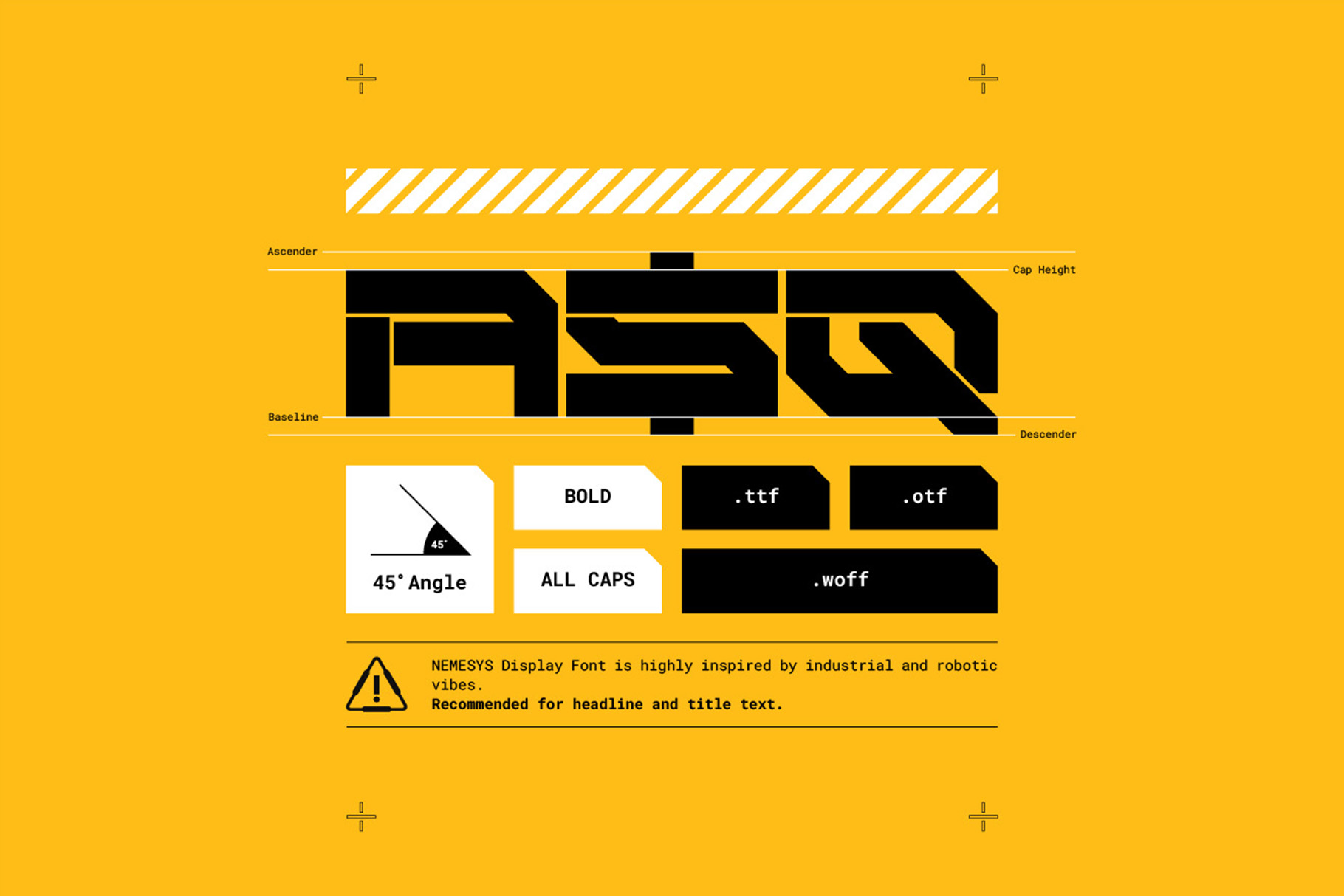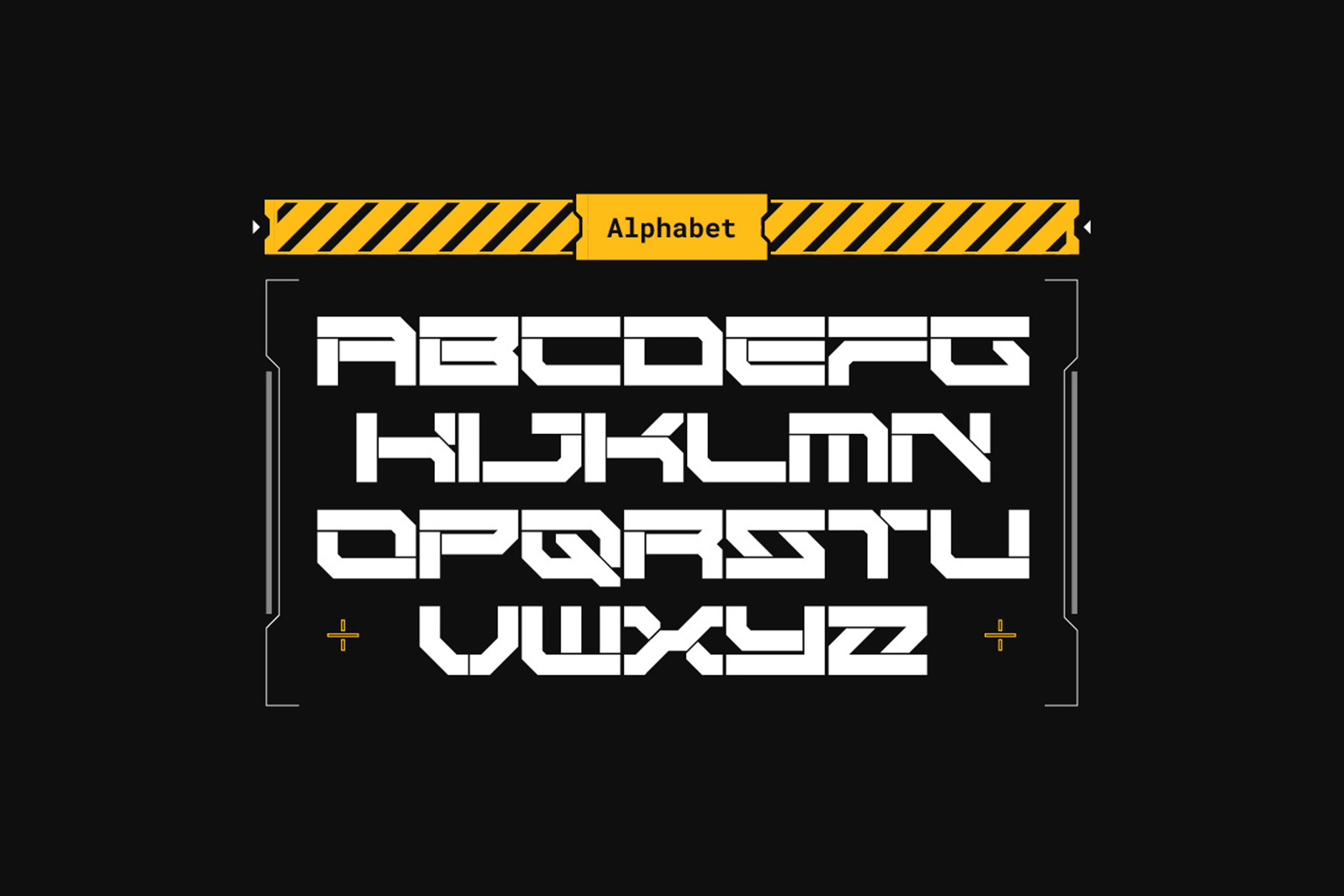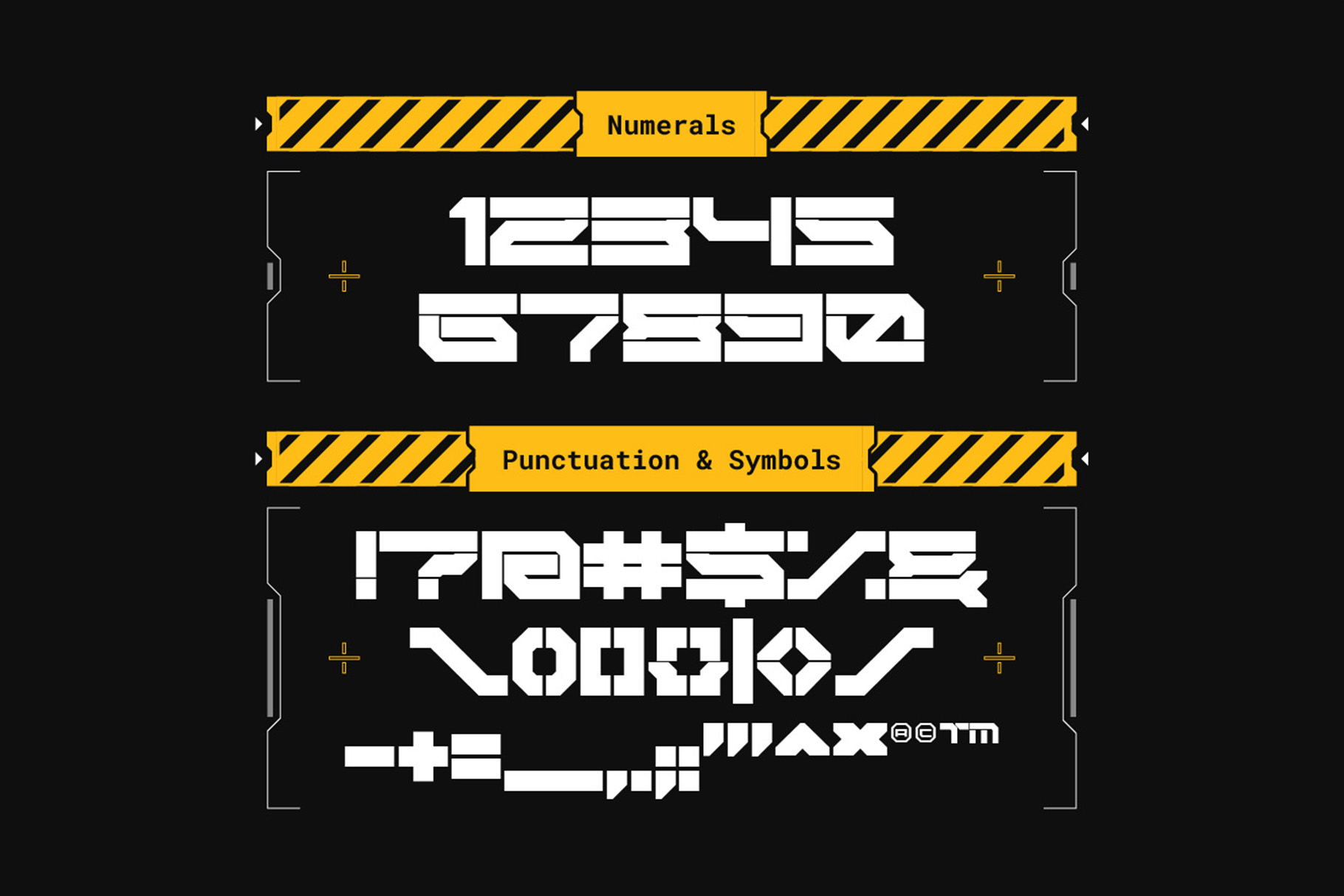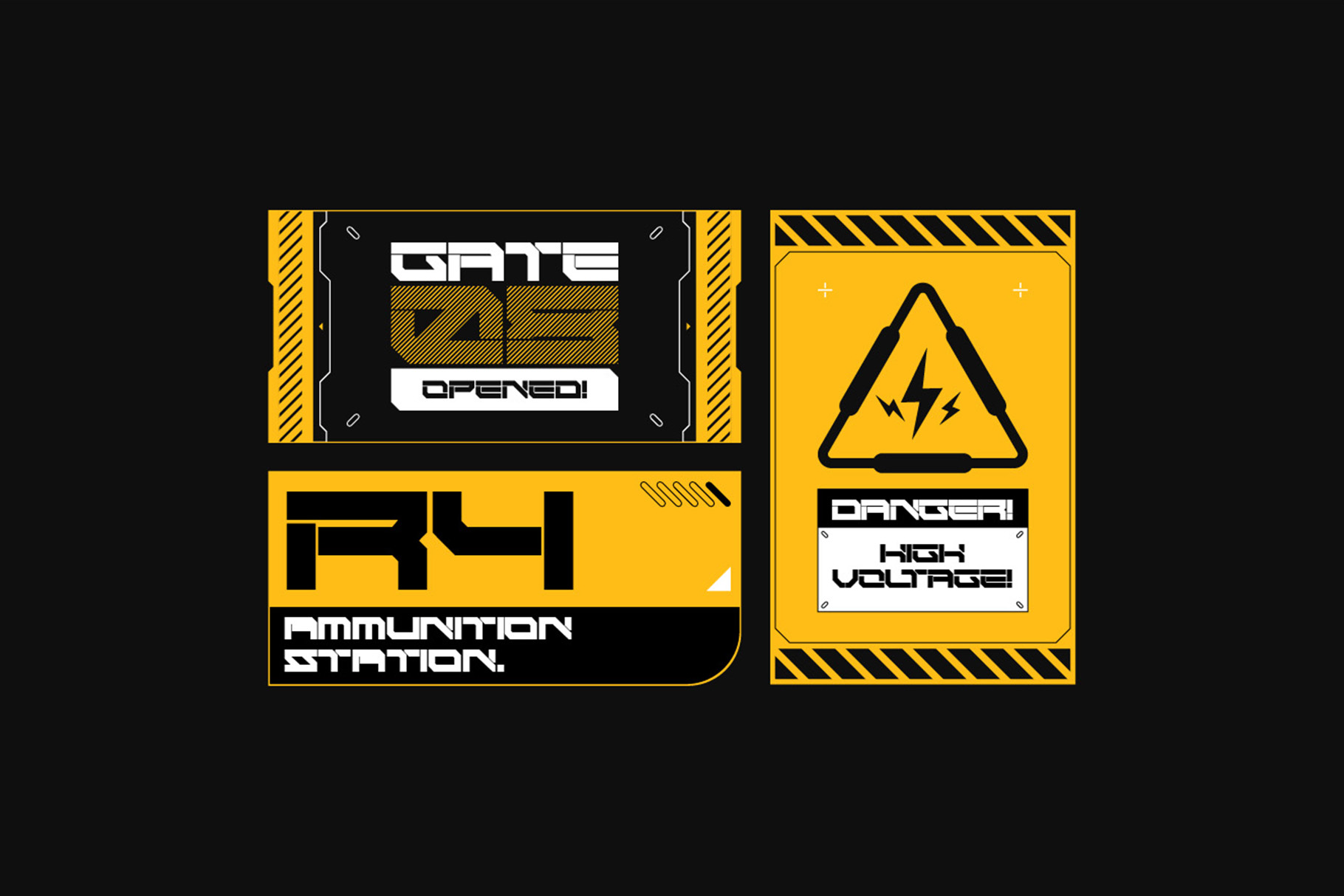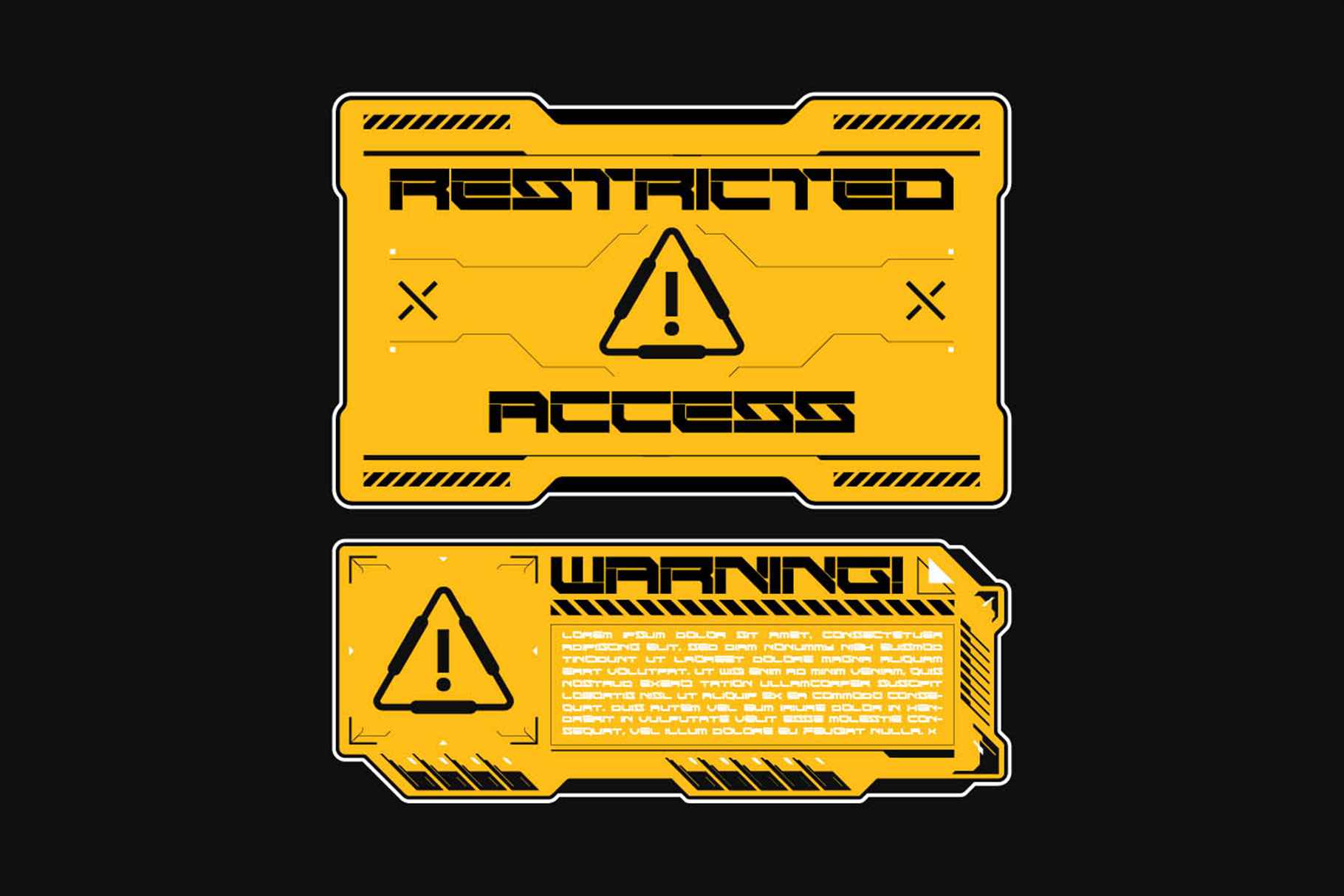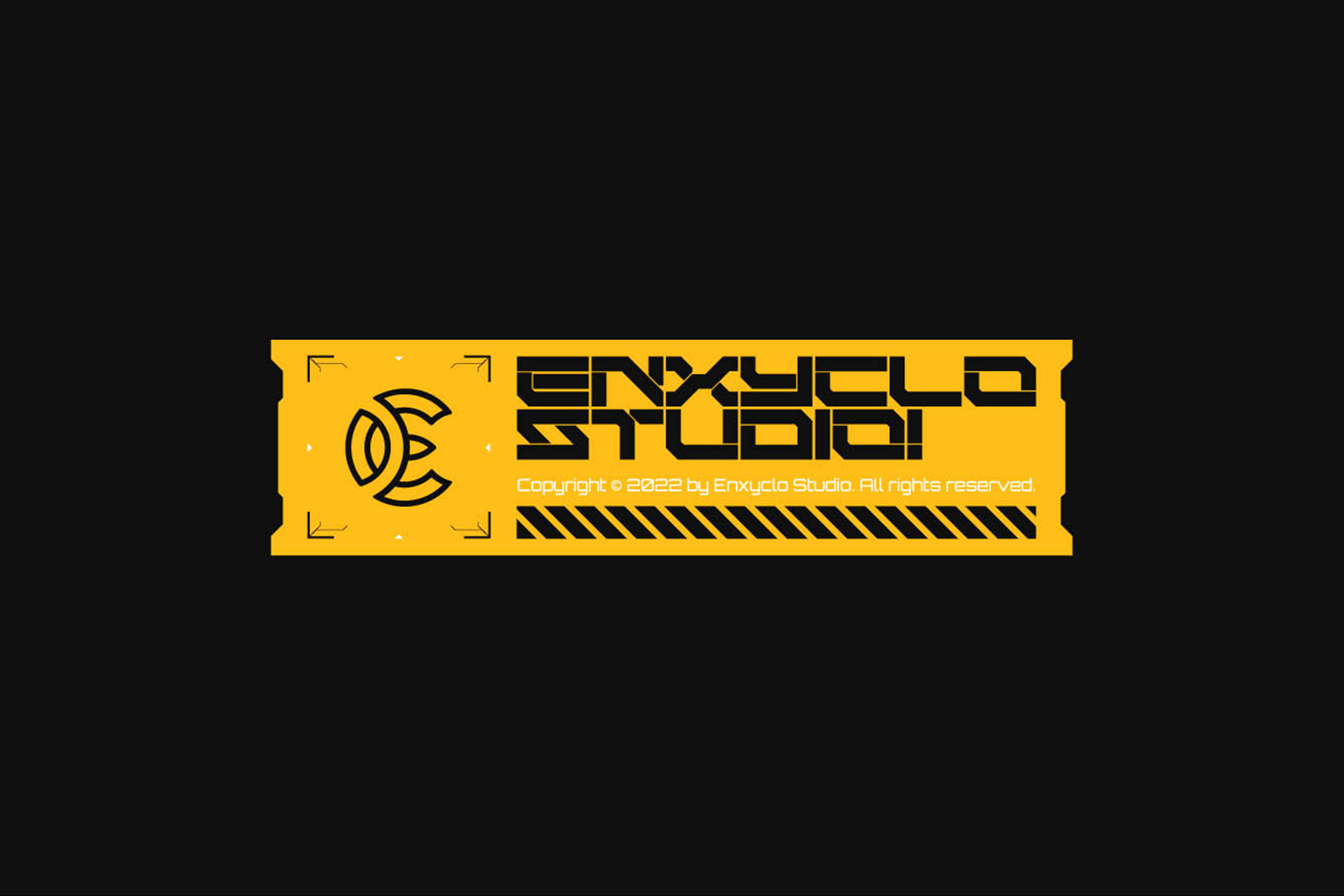
Nemesys – Cyberpunk Futuristic Mecha Font
NEMESYS is futuristic cyberpunk display font. Highly inspired by industrial and robotic vibes. The design of typeface will make your project more powerful and inspiring. It is perfect for headline, billboard, magazines, website, titles, poster, branding, thumbnail, t-shirt design, street wear design, and creative logos, or any project that needs futuristic touch. With this beautiful futuristic display font, absolutely you can make your project stand out from the rest.
Contains 95 Glyphs
Uppercase, Numeral, Punctuation & Symbol